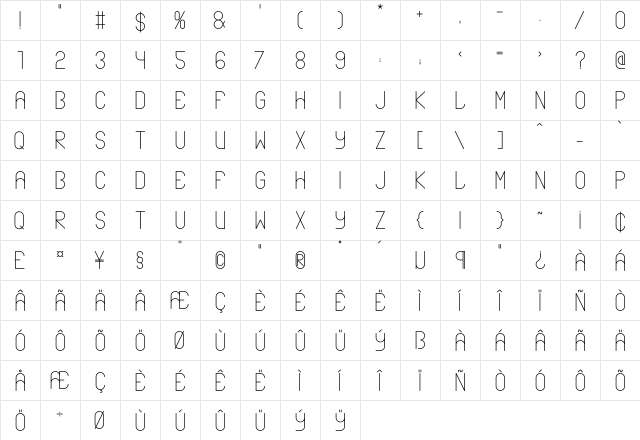
ABLAX Regular
Design Context for ABLAX Typeface
ABLAX takes a measured approach to typography — its balanced proportions and neutral character make it a reliable workhorse for both digital and print work.